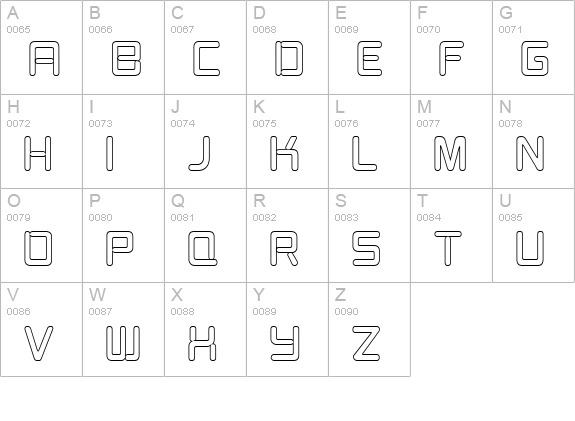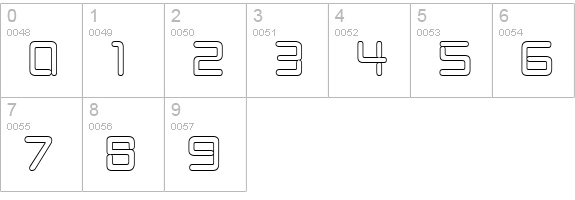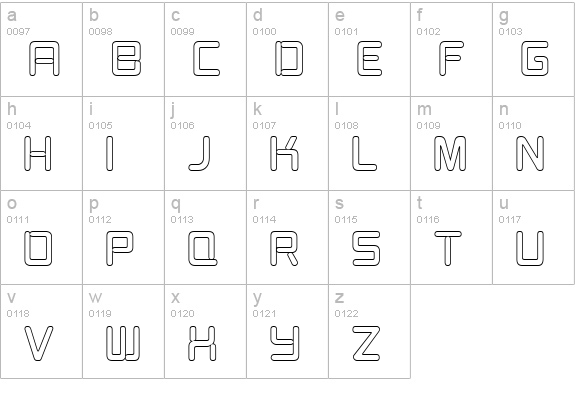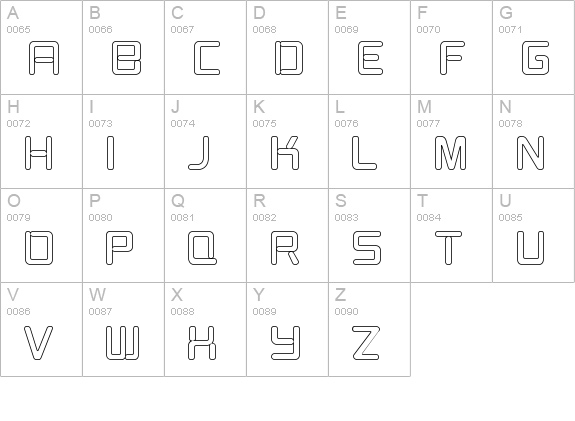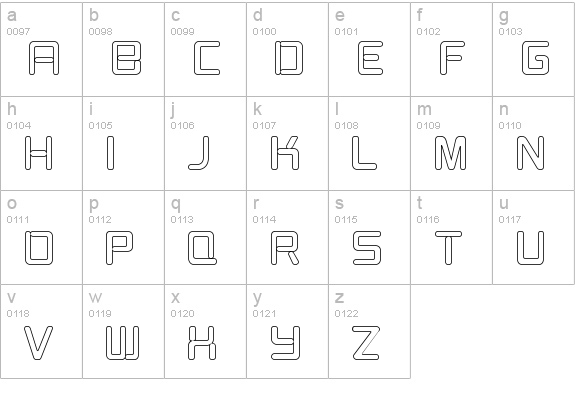
Burger Joint Neon Open JL font is a vibrant and eye-catching typeface that perfectly captures the nostalgic charm of classic burger joints and diners. Its bold and retro design features neon-inspired lettering that adds a fun and whimsical touch to any project. Whether you're working on a menu, signage, or branding for a burger restaurant, this font is sure to make a statement. The best part is that Burger Joint Neon Open JL font is available for free download at FontsMarket.com. This means you can easily access and use this unique font in your designs without any cost. Don't miss out on this opportunity to add a touch of vintage flair to your projects with Burger Joint Neon Open JL font!